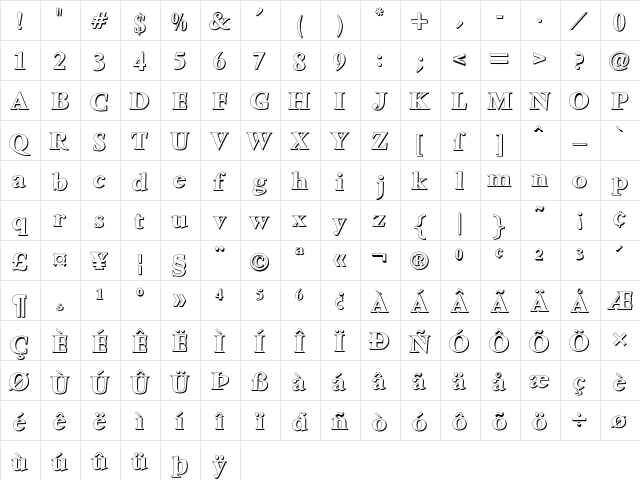
VenturaShadow-Bold Regular Font Preview
VenturaShadow-Bold Regular
VenturaShadow-Bold Regular Font Details
Design Context for VenturaShadow-Bold Typeface
VenturaShadow-Bold brings ornamental detail and strong personality to headlines and identities, where visual impact matters more than quiet functionality. Its bold stroke weight gives it real presence on the page.
Font Pairing: Pair with a clean neutral sans-serif for body copy to let VenturaShadow-Bold's character lead without overwhelming the composition.
Pro Tip: Use VenturaShadow-Bold exclusively at display sizes — it was designed to be seen, not read at length. Let a neutral companion handle body copy.